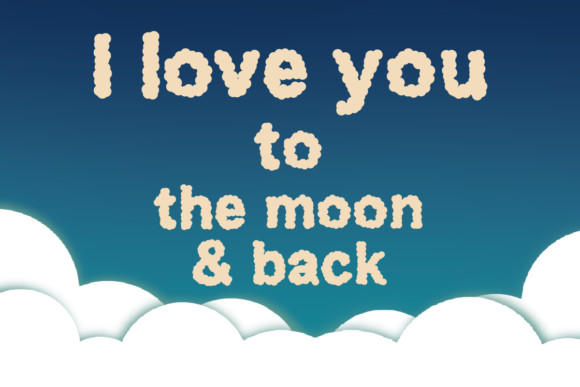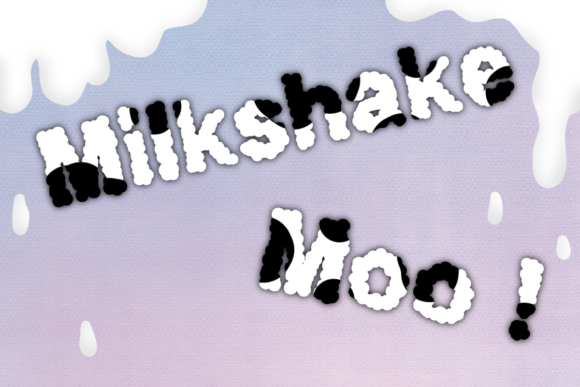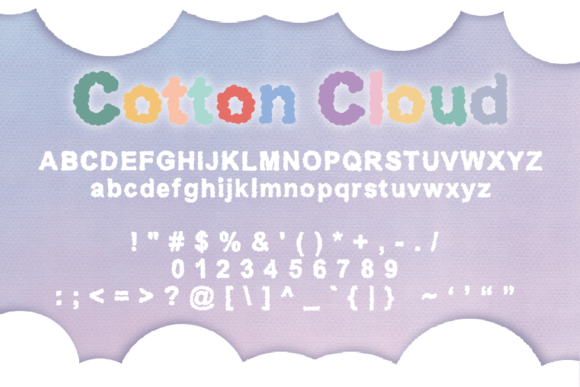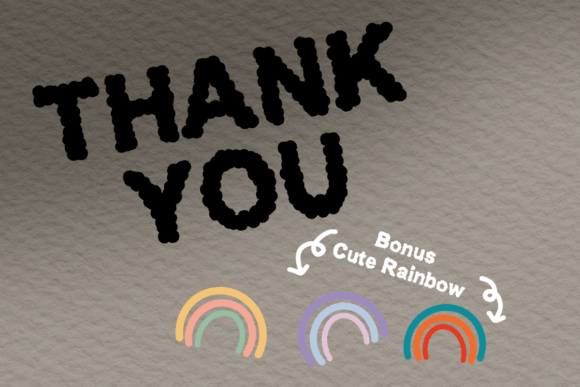
Cotton Cloud Font: The Cutest Display Font for Kids’ Designs
Are you looking for a font that’s as sweet as cotton candy and as fun as a fluffy cloud? Look no further than the Cotton Cloud Font! This adorable display font is perfect for children’s-themed designs, and its unique shape is sure to make your artwork stand out.
What makes Cotton Cloud Font so special?
Cotton Cloud Font is a one-of-a-kind display font that’s shaped like a cloud, cotton candy, and chubby – making it a delightful addition to any kids’ design project. Its cute and fun design is sure to capture the attention of kids and parents alike, making it perfect for projects such as:
- Kids’ party invitations
- Children’s book titles
- Toy packaging
- Kids’ clothing and accessories
- Playful posters and flyers
Why Cotton Cloud Font is a great choice for designers and crafters
As a designer or crafter, you’re always on the lookout for unique and engaging elements to add to your projects. Cotton Cloud Font offers a range of benefits, including:
- Easy to read and fun to use: The font’s playful design doesn’t compromise on readability, making it easy to use for headlines, titles, and short paragraphs.
- Perfect for kids’ designs: The font’s cute and colorful design is specifically tailored for kids’ projects, making it a great choice for designers and crafters who specialize in children’s products.
- Time-saving: The font’s bold and eye-catching design means you can create stunning artwork in no time!
How to use Cotton Cloud Font in your designs
Using Cotton Cloud Font in your designs is easy! Here are some tips to get you started:
- Pair with bright colors: The font’s playful design is perfect for bright and bold colors. Try pairing it with a rainbow of colors to create a stunning effect.
- Experiment with different sizes: The font’s unique shape looks great in a range of sizes. Experiment with different sizes to create visual interest in your designs.
- Add textures and patterns: The font’s bold design looks great with textures and patterns. Try adding a subtle texture or pattern to give your designs an extra layer of depth.
Cotton Cloud Font is a unique and engaging display font that’s perfect for kids’ designs. Its cute and fun design, combined with its bold and eye-catching shape, makes it a great choice for designers and crafters. With the bonus 3 Rainbow PNG files, you can take your designs to the next level and create stunning artwork that’s sure to capture the attention of kids and parents alike.